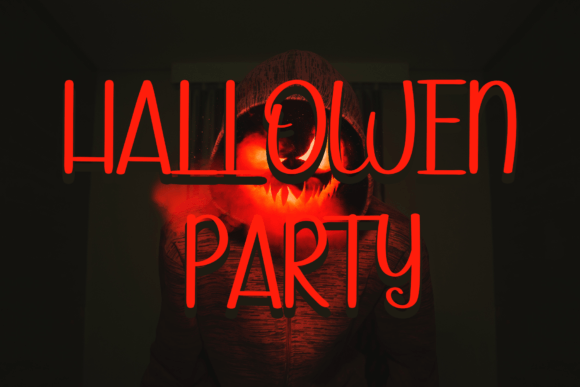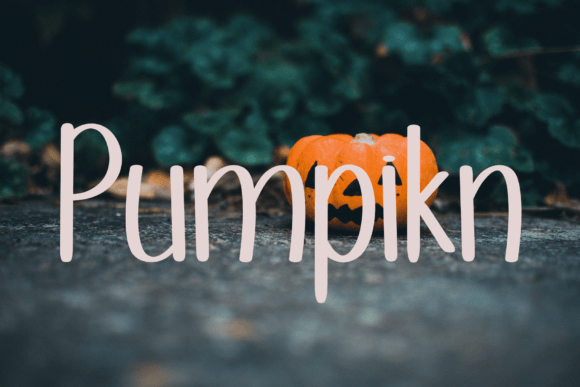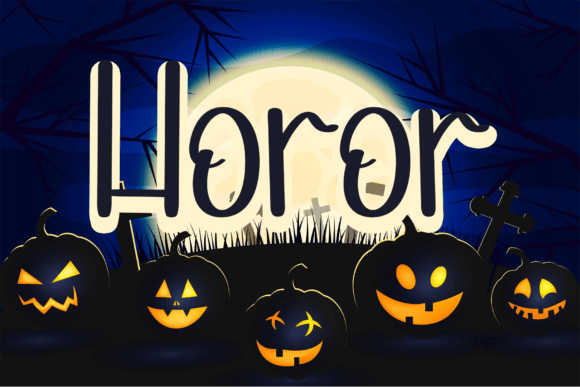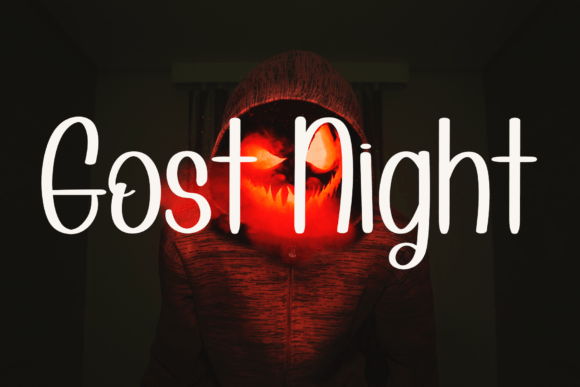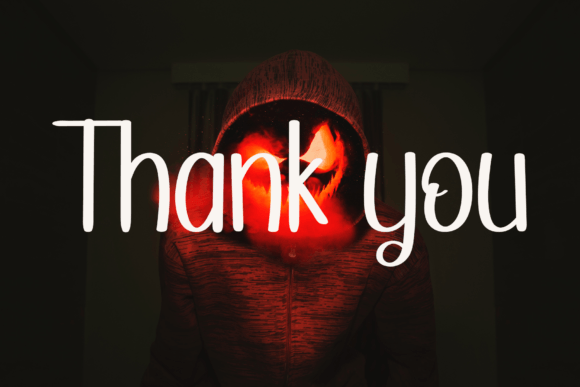
Introduction to Scary Font
As a designer, have you ever found yourself staring at a blank canvas, trying to conjure up the perfect design for a Halloween-themed project? The lights are dim, the jack-o-lanterns are lit, and the atmosphere is set – but the font just isn’t quite right. That’s where the Scary Font comes in, a hauntingly beautiful display font that will transport your designs to a world of classic mystery and horror.
With its eerie, high-quality design, the Scary Font is the perfect addition to any designer’s library. Whether you’re working on a fashion project, creating a logo for a haunted house, or simply need a font that screams “spooky season,” this font has got you covered. And the best part? It’s available for a free download, making it an invaluable resource for designers of all levels.
So why is the Scary Font so valuable for designers? For one, its transparent background makes it incredibly versatile, allowing you to layer it over any design element. Plus, its high-quality design ensures that it will look crisp and clear on any medium, from social media posts to magazine advertisements.
Key Features of Scary Font
- High-quality, free download design resource perfect for creative projects, with a unique, spooky aesthetic.
- Scalable to any size, with a resolution of 300 DPI, ensuring crisp and clear text display on various mediums.
- Features a transparent background, allowing for easy layering and composition in design projects.
- Includes a comprehensive character set, including uppercase and lowercase letters, numbers, and special characters.
- Designed to evoke a sense of eeriness and foreboding, making it an ideal choice for Halloween-themed designs, horror movies, or any project that requires a spooky atmosphere.
Honest Review: Scary Font
I recently came across the Scary Font, a design resource that’s perfect for adding a spooky touch to your creative project. At first glance, I was impressed by the high quality of the font, which features intricate details and bold lines.
What works well: ✨ The font is incredibly versatile and can be used for a variety of purposes, from horror movie posters to spooky Halloween decorations. The transparent background makes it easy to layer over other design elements.
Here are some key features of the Scary Font:
- High-quality design with intricate details and bold lines
- Perfect for horror, Halloween, and spooky-themed projects
However, there are a few limitations to keep in mind: ⚠️ The font may not be suitable for all audiences, and some users may find it too spooky or intense. Additionally, the font’s size and weight can be quite large, so be sure to scale it down accordingly.
Overall, I’m impressed by the Scary Font and would highly recommend it for anyone looking to add a spooky touch to their design project.
Tips for Getting the Most Out of Scary Font
For the best results, experiment with different font sizes, colors, and layer blending modes. You can also combine Scary Font with other design elements, such as images or shapes, to create a unique look.
Common Use Cases for Scary Font
Scary Font is perfect for Halloween-themed designs, horror movie posters, and spooky invitations. It’s also great for adding a touch of eeriness to your branding or marketing materials.
Is the Scary Font a high-quality font?
Yes, the Scary Font is designed to be a high-quality font with precise typography and a unique aesthetic. It’s perfect for designers who want to add a touch of sophistication and creativity to their projects. With its transparent background and free download option, it’s an excellent design resource for designers of all levels.